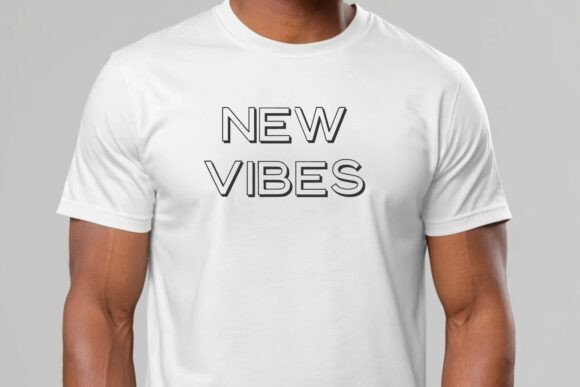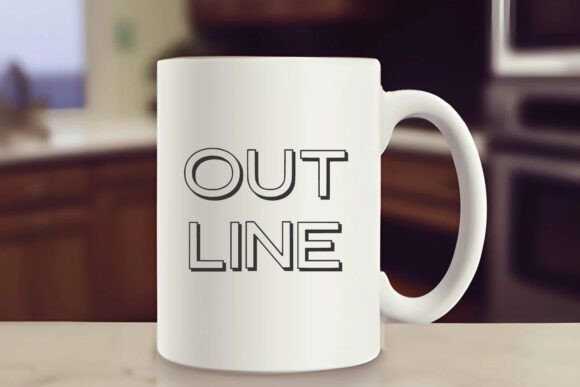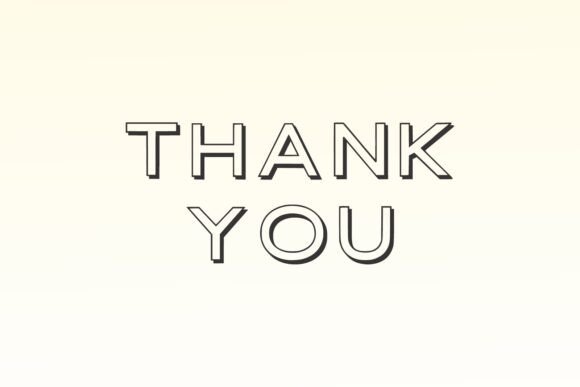
Good Perform Font – Free Download
Introduction to Good Perform Font
Good Perform a display font that is elegant, bright, and fun.
It is perfect for children-themed designs, especially when combined with bright and pastel colors Add this beautiful display font to each of your creative ideas, and notice how it makes them stand out.
Key Features of Good Perform Font
Why Choose Good Perform Font?
Good Perform Font offers exceptional quality and versatility, making it a valuable addition to your design toolkit. Whether you’re creating for personal projects or commercial use, Good Perform Font delivers professional results.